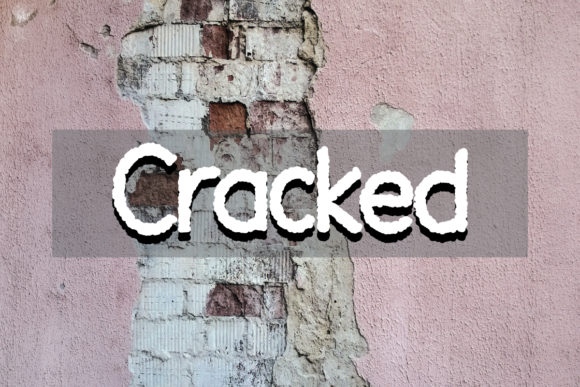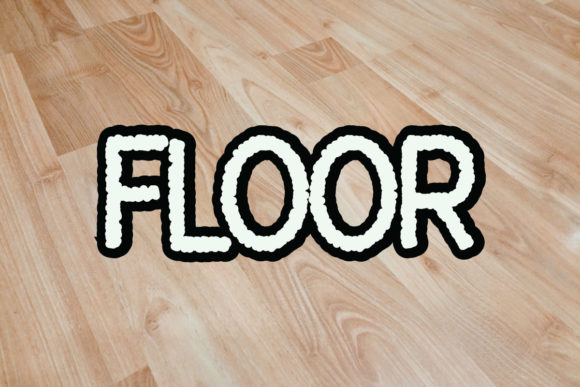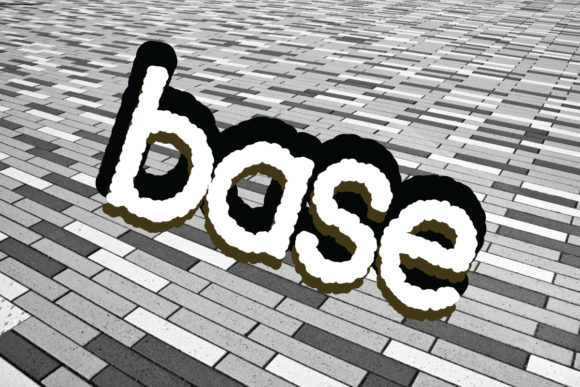
Brickwall Font: The Ultimate Display Font for Designers and Crafters
In the world of typography, a good font can make all the difference in creating a lasting impression. For designers and crafters looking for a bold and original display font, Brickwall Font is an excellent choice. This versatile font is adaptable to any branding, product packaging, invitation, quote, t-shirt, label, poster, logo, or any other creative project you wish to create.
What is Brickwall Font?
Brickwall Font is a unique and eye-catching display font designed to add a touch of personality to your designs. Its bold and chunky texture gives it a distinctive look that is sure to grab attention. The font’s design is inspired by the rugged and textured look of brick walls, hence the name Brickwall.
Key Features of Brickwall Font
- Bold and Original: Brickwall Font is a one-of-a-kind display font that adds a touch of boldness to your designs.
- Versatile: This font is adaptable to various design projects, including branding, product packaging, invitations, quotes, t-shirts, labels, posters, logos, and more.
- Easy to Read: Despite its bold texture, Brickwall Font is easy to read, making it perfect for headlines, titles, and short phrases.
- High-Quality: The font is designed with high-quality and crisp lines, ensuring it looks great in both digital and print formats.
Use Cases for Brickwall Font
Brickwall Font is an excellent choice for various design projects, including:
- Branding: Use Brickwall Font to create bold and memorable logos, taglines, or brand names.
- Product Packaging: Add a touch of personality to your product packaging with Brickwall Font.
- Invitations: Create eye-catching invitations for parties, events, or weddings with Brickwall Font.
- Quotes and Posters: Use Brickwall Font to create inspiring quotes, posters, or prints that grab attention.
- T-Shirts and Apparel: Design bold and stylish t-shirts, hoodies, or other apparel with Brickwall Font.
- Labels and Stickers: Create custom labels, stickers, or decals with Brickwall Font for a personalized touch.
Why Choose Brickwall Font?
With so many fonts available, why choose Brickwall Font? Here are a few reasons:
- Unique Design: Brickwall Font has a distinctive design that sets it apart from other fonts.
- Highly Versatile: Brickwall Font can be used for various design projects, making it a great addition to your font library.
Tips for Using Brickwall Font
To get the most out of Brickwall Font, here are a few tips:
- Use it Boldly: Brickwall Font is designed to be bold and eye-catching, so use it to make a statement.
- Experiment with Colors: Try pairing Brickwall Font with different colors to create unique and striking designs.
- Mix and Match: Combine Brickwall Font with other fonts to create interesting and dynamic designs.
- Pay Attention to Kerning: Make sure to adjust the kerning to ensure the font looks great and is easy to read.
In conclusion, Brickwall Font is an excellent choice for designers and crafters looking for a bold and original display font. Its versatility, ease of use, and high-quality design make it perfect for various design projects. Whether you’re creating branding materials, product packaging, invitations, or quotes, Brickwall Font is sure to add a touch of personality and style to your designs.